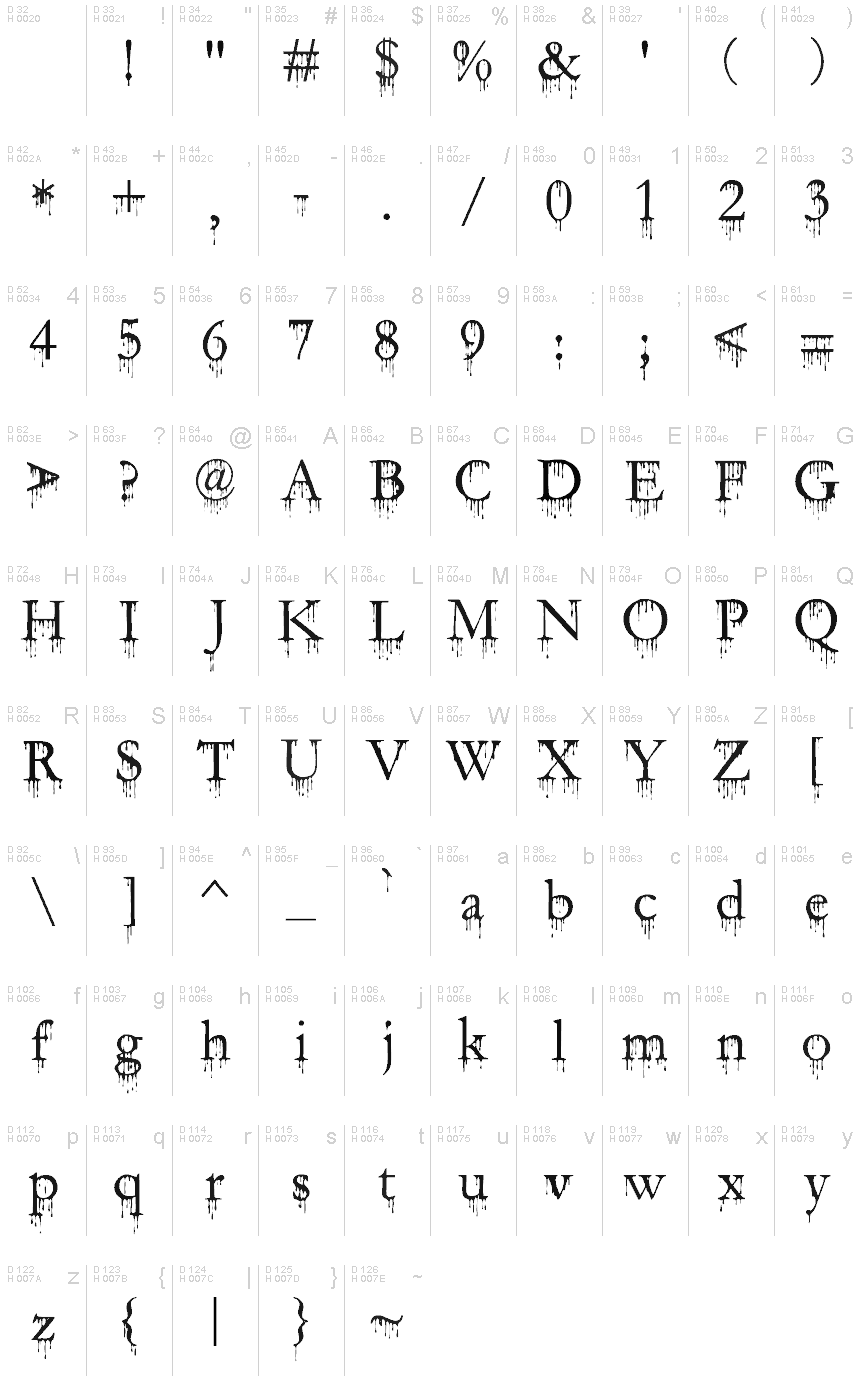
SF Gushing Meadow
SF Gushing Meadow, a creation of ShyFonts Type Foundry, emerges as a display font with an eerie twist. Its semi-light weight belies the chilling effect of its dripping details, making it a standout choice for projects that require a touch of the macabre. The 'scary' style is not just a descriptor but an experience as each character oozes with unsettling charm.
The aesthetic appeal of SF Gushing Meadow lies in its ability to invoke the spooky and spectral without compromising readability. Its distinctive design makes it particularly suitable for Halloween promotions, horror-themed events, and any creative endeavor that dares to venture into the shadows.
Whether you are looking to enhance the visual narrative of a ghost story or craft eye-catching graphics for an edgy brand, SF Gushing Meadow offers versatility within its niche. It stands as much more than a typeface; it is an artistic statement that ensures your message is felt with just the right amount of thrill.
The aesthetic appeal of SF Gushing Meadow lies in its ability to invoke the spooky and spectral without compromising readability. Its distinctive design makes it particularly suitable for Halloween promotions, horror-themed events, and any creative endeavor that dares to venture into the shadows.
Whether you are looking to enhance the visual narrative of a ghost story or craft eye-catching graphics for an edgy brand, SF Gushing Meadow offers versatility within its niche. It stands as much more than a typeface; it is an artistic statement that ensures your message is felt with just the right amount of thrill.